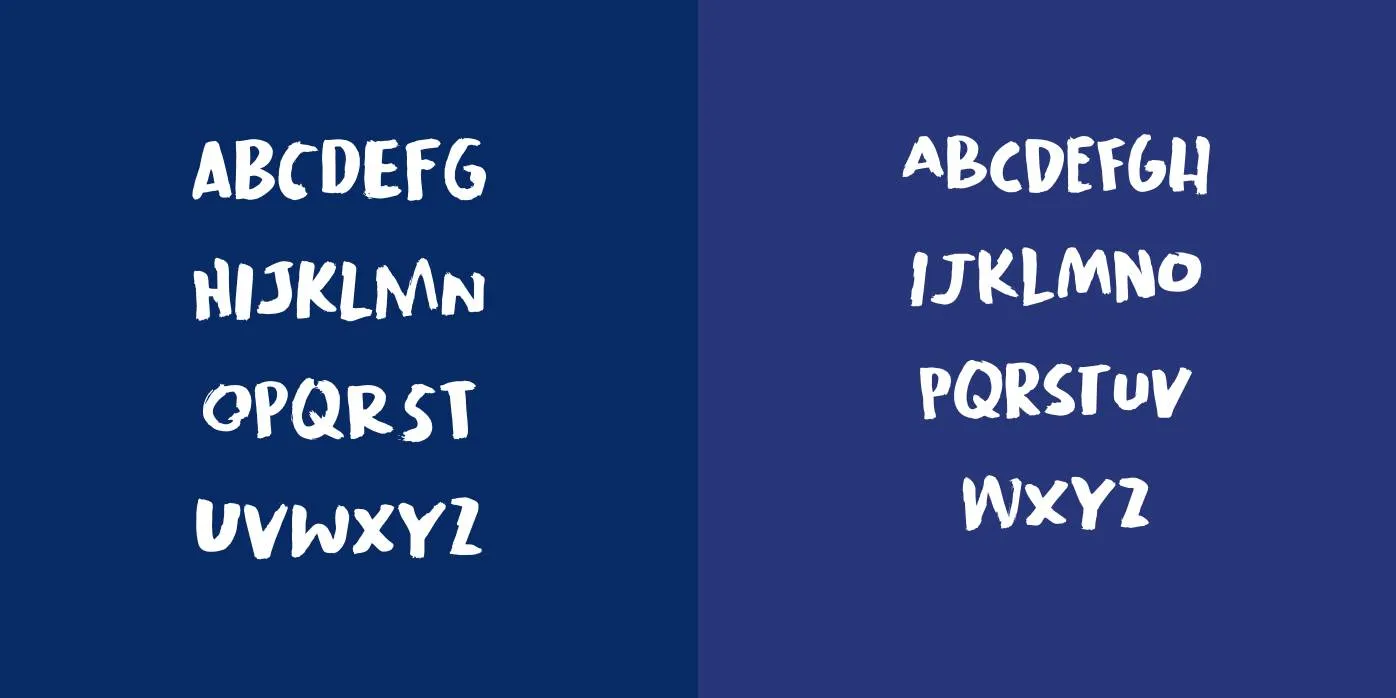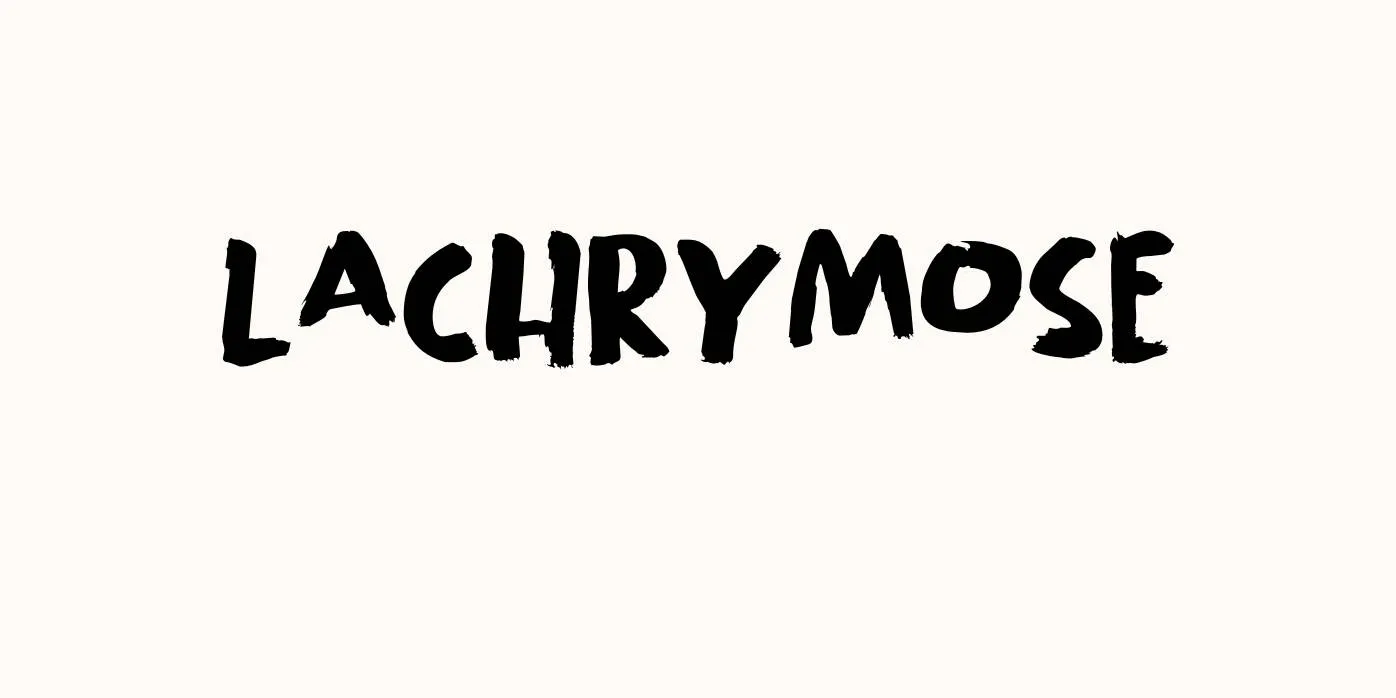
Lachrymose Font
Lachrymose Font is the brush type of font. This typeface has a beautiful brush type of characters that support numbers, lowercase letters, uppercase letters, punctuation, special characters, and some international characters. If you are interested in using this amazing type of font then you have to buy its license for industrial use. But you can use this typeface for individual use free of cost.
Moreover, this typeface has a lot of usage in the highlighting materials. The texture comes in both OTF and TTF font formats. You will get the typeface in the zip file. Hanoded is the designer for this texture.